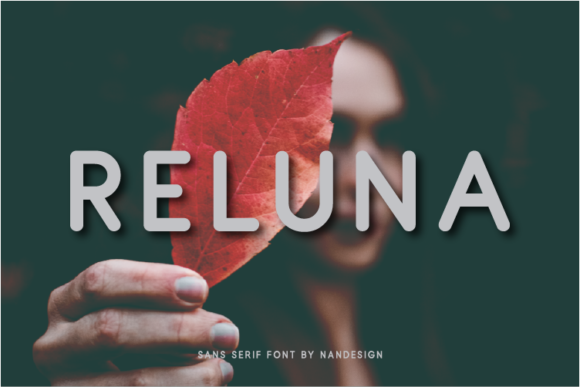
Step back in time with Reluna, a captivating sans serif font that exudes the elegance of a bygone era. Inspired by the charm of yesteryear, this typeface transports your designs to a realm of timeless beauty.
With its graceful curves and sophisticated lines, Reluna adds a touch of nostalgia to every project. Picture the graceful script of vintage letters, the sophisticated allure of antique invitations, and the timeless charm of classic logos. Reluna transforms your creations into captivating works of art.
Immerse yourself in the possibilities with Reluna. Whether you're a designer seeking a unique and evocative typeface or an individual yearning to add a touch of vintage flair to your personal expression, this font empowers you to make an unforgettable statement.
Embrace the allure of the past with Reluna. Let its enchanting spirit captivate your audience, evoke memories, and create designs that resonate with the soul.